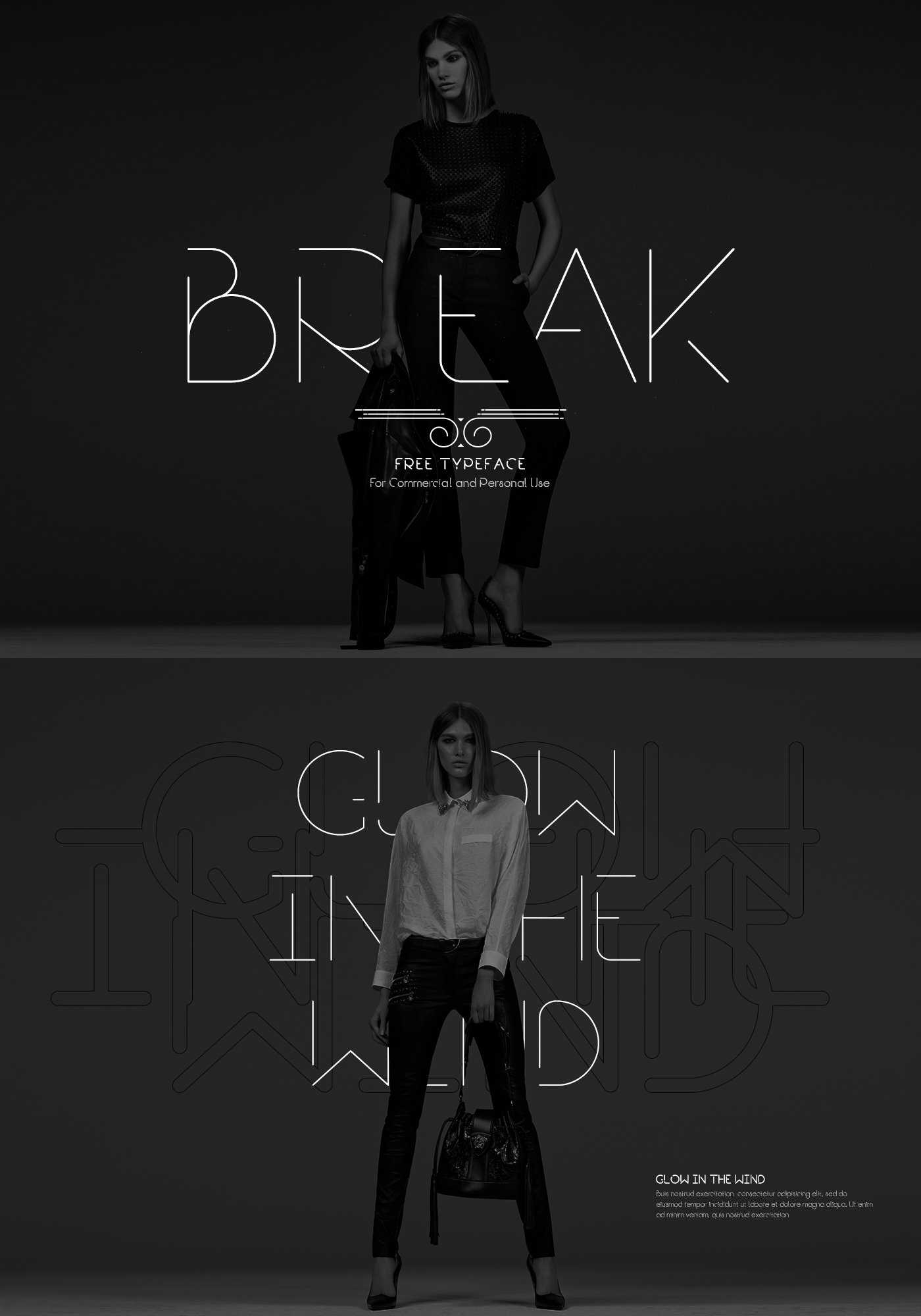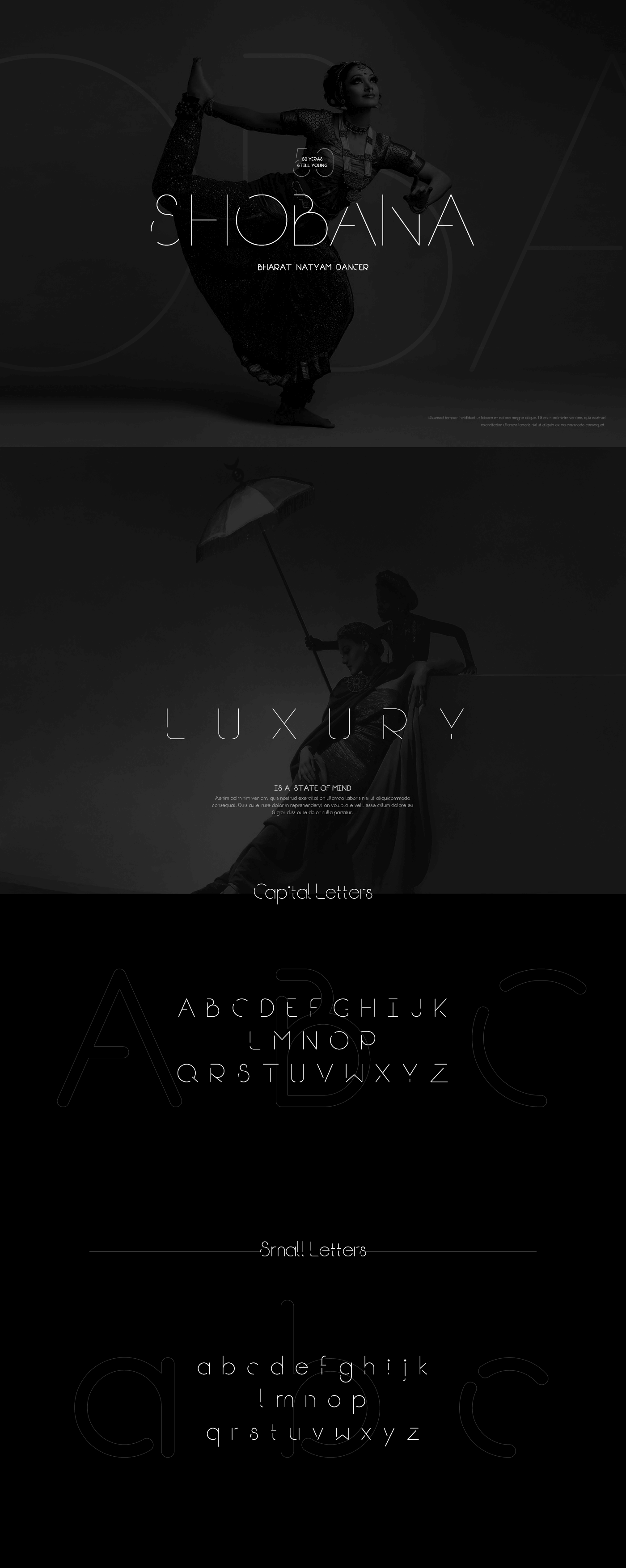
Break it’s one free elegante font family
Break it’s an elegant modern fresh free font family containing five weights from Bold to ExtraLight, as the images chosen by the author illustrate, it’s very suitable for fashion design.